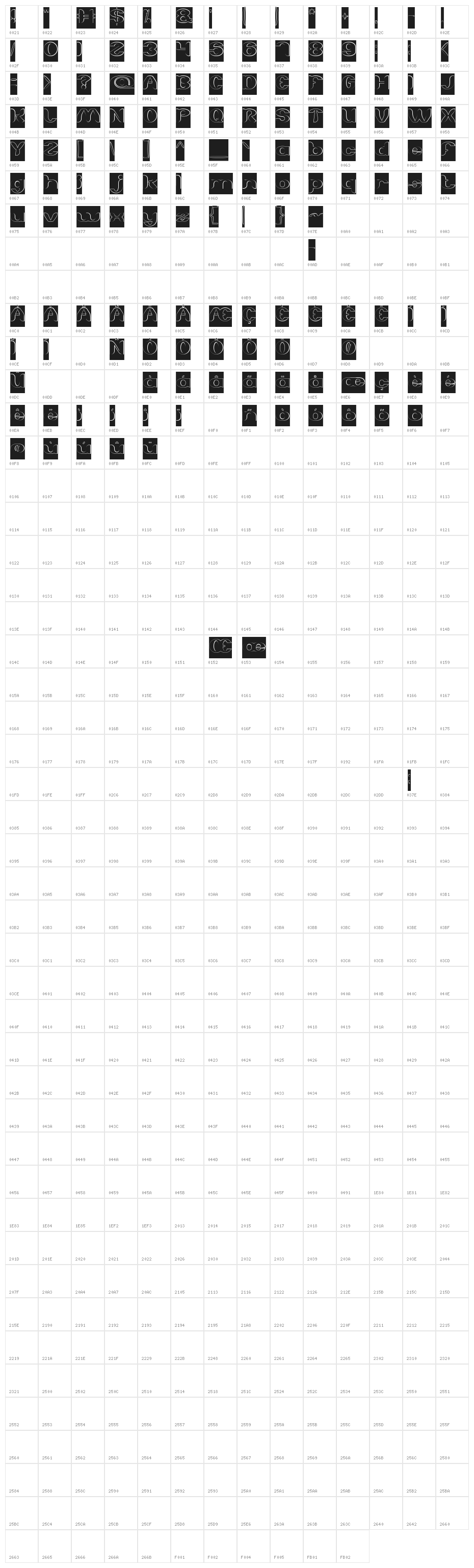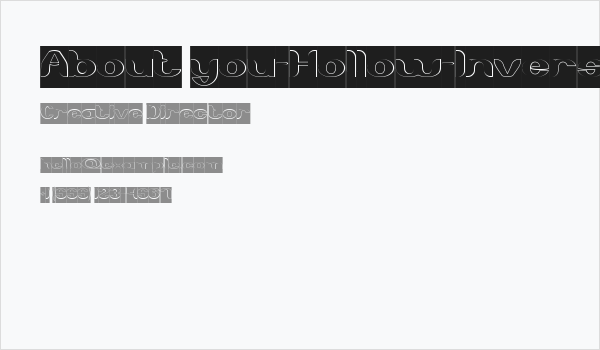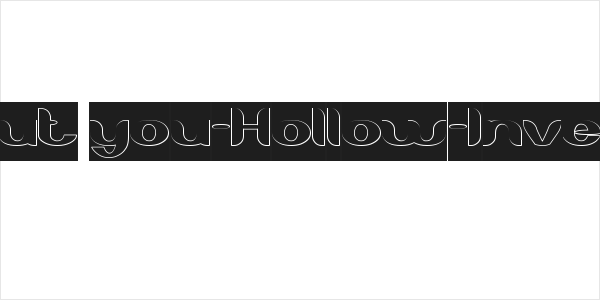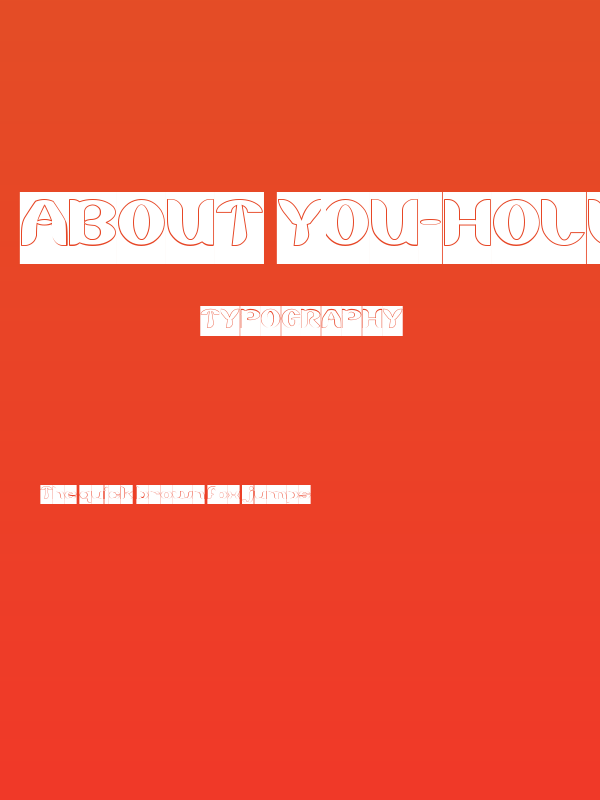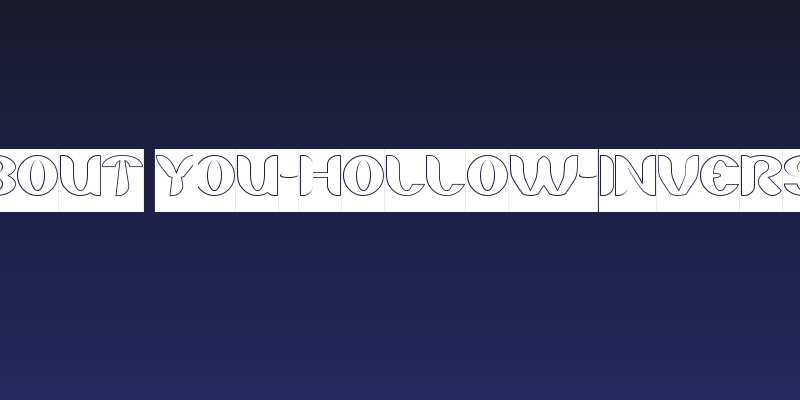
About you-Hollow-Inverse Font
About you-Hollow-Inverse Description
This font features a unique hollow design with inverse styling, where the interior of each character is transparent, creating a striking outline effect. The characters are bold and rounded, giving them a playful and modern appearance. The uppercase and lowercase letters maintain a consistent style, with smooth curves and a uniform thickness throughout. Numbers and special characters are designed to match the overall aesthetic, ensuring a cohesive look across all text elements. This font is ideal for projects that require a bold statement or a creative touch.
| Proposed Projects | Ideal for creative posters, modern branding, eye-catching headlines, and digital artwork. |